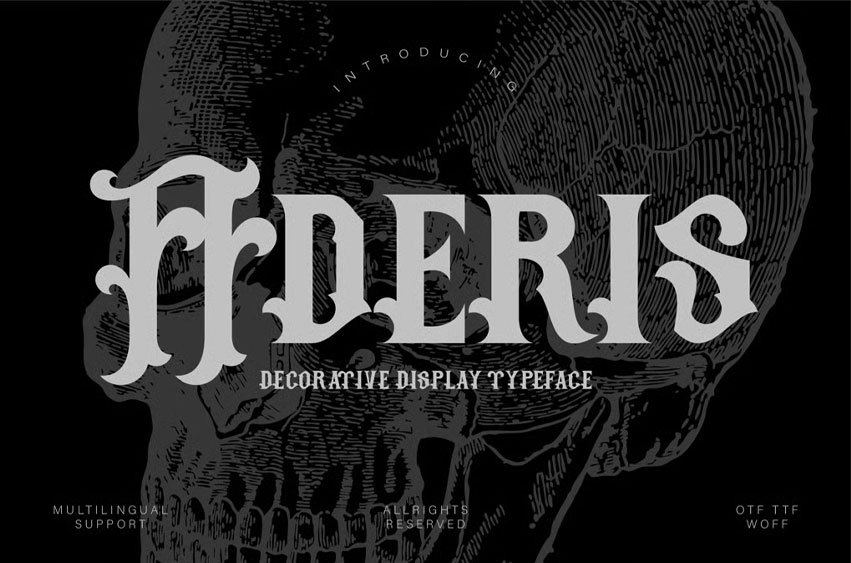
Aderis Font is a decorative font that blends elegance with a touch of artistic flair.
Its intricate, stylish design features bold, expressive lines and unique flourishes, making it perfect for creative and high-end projects.